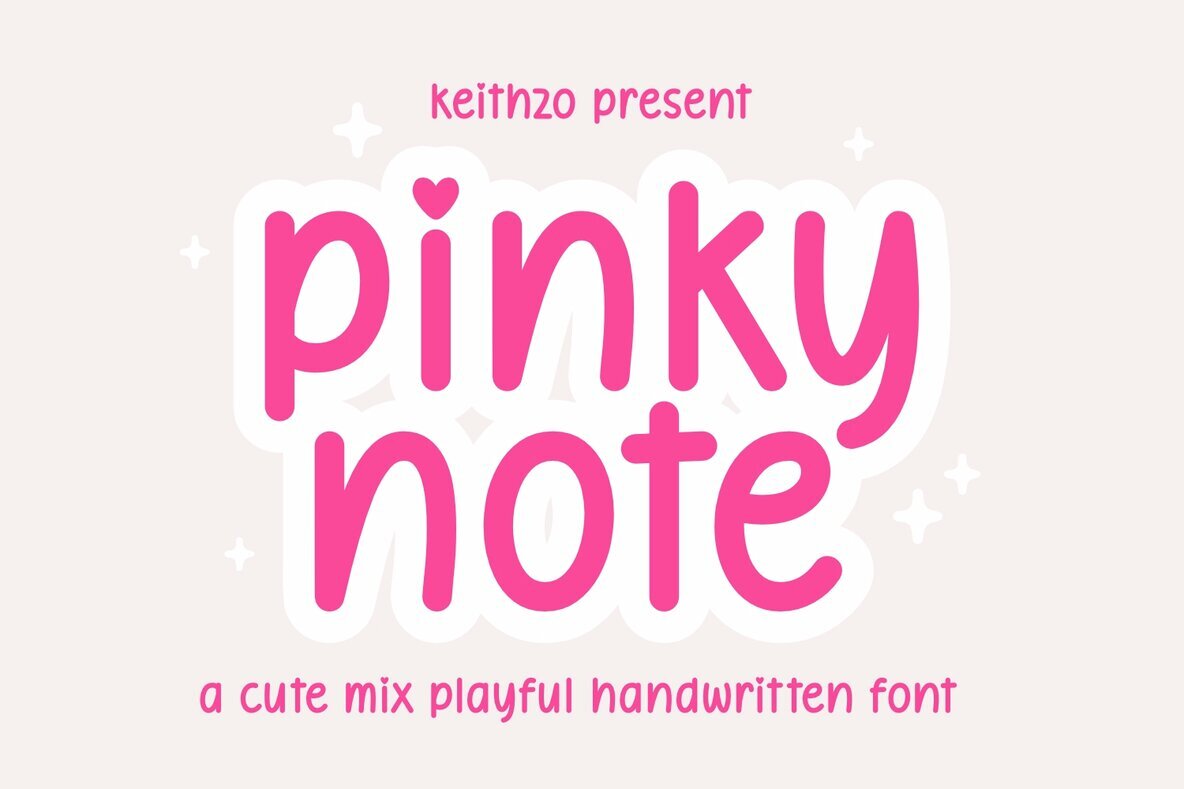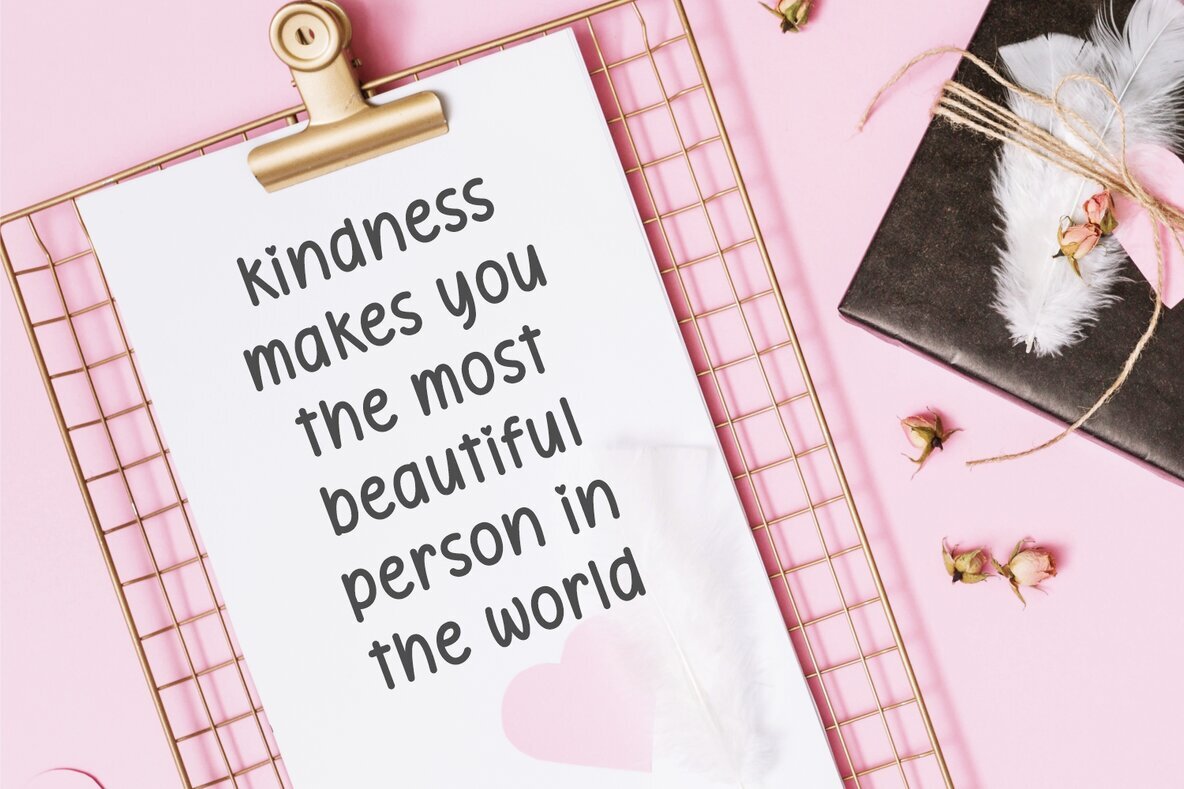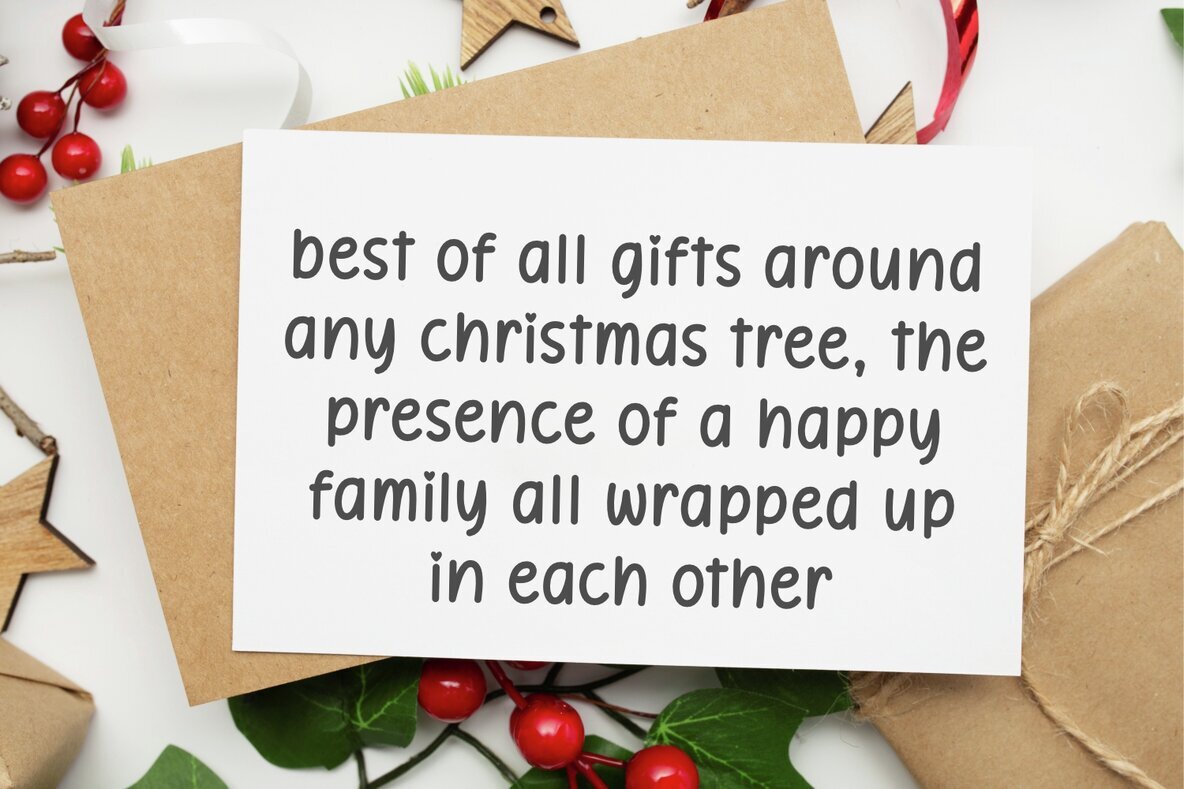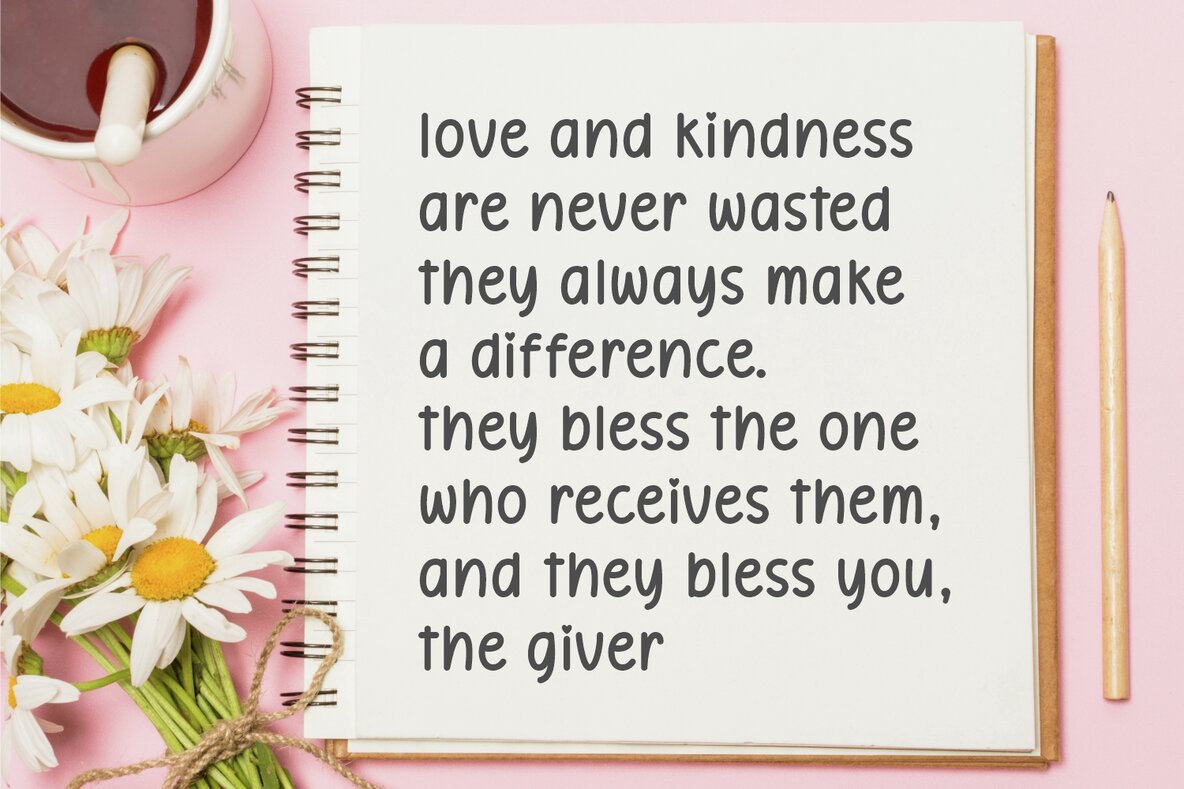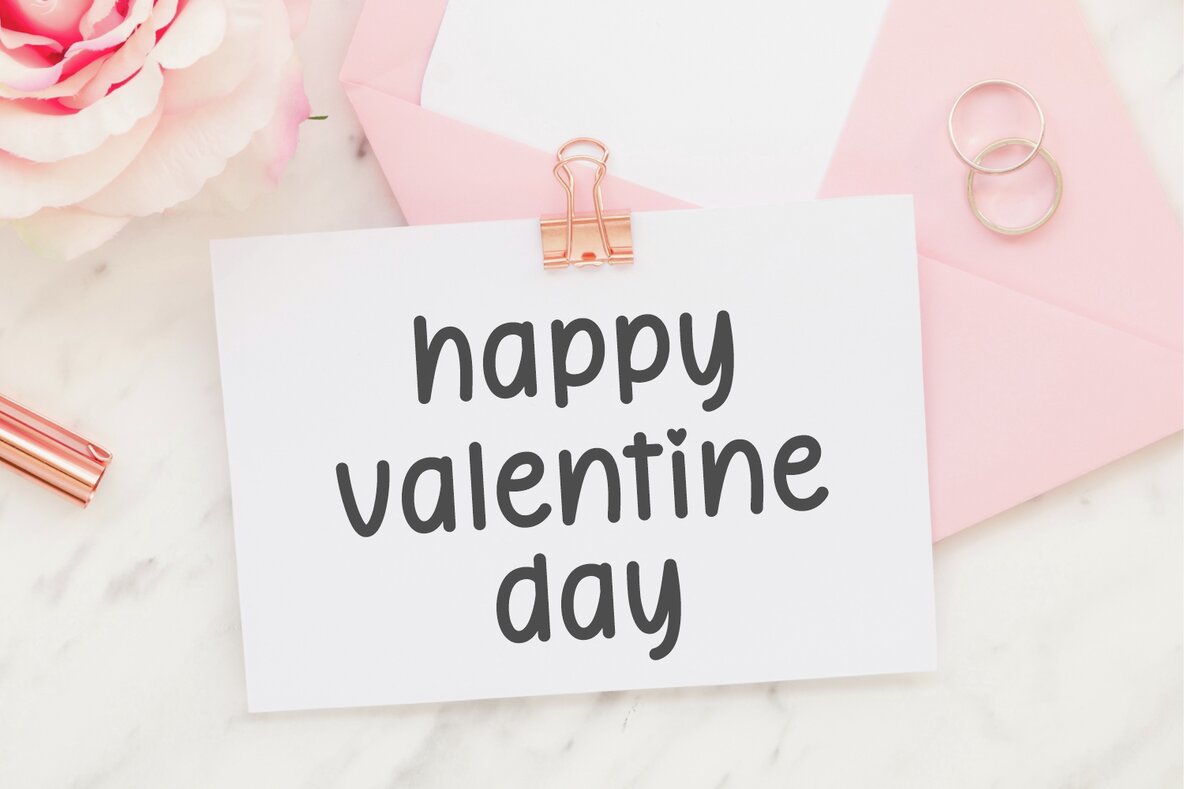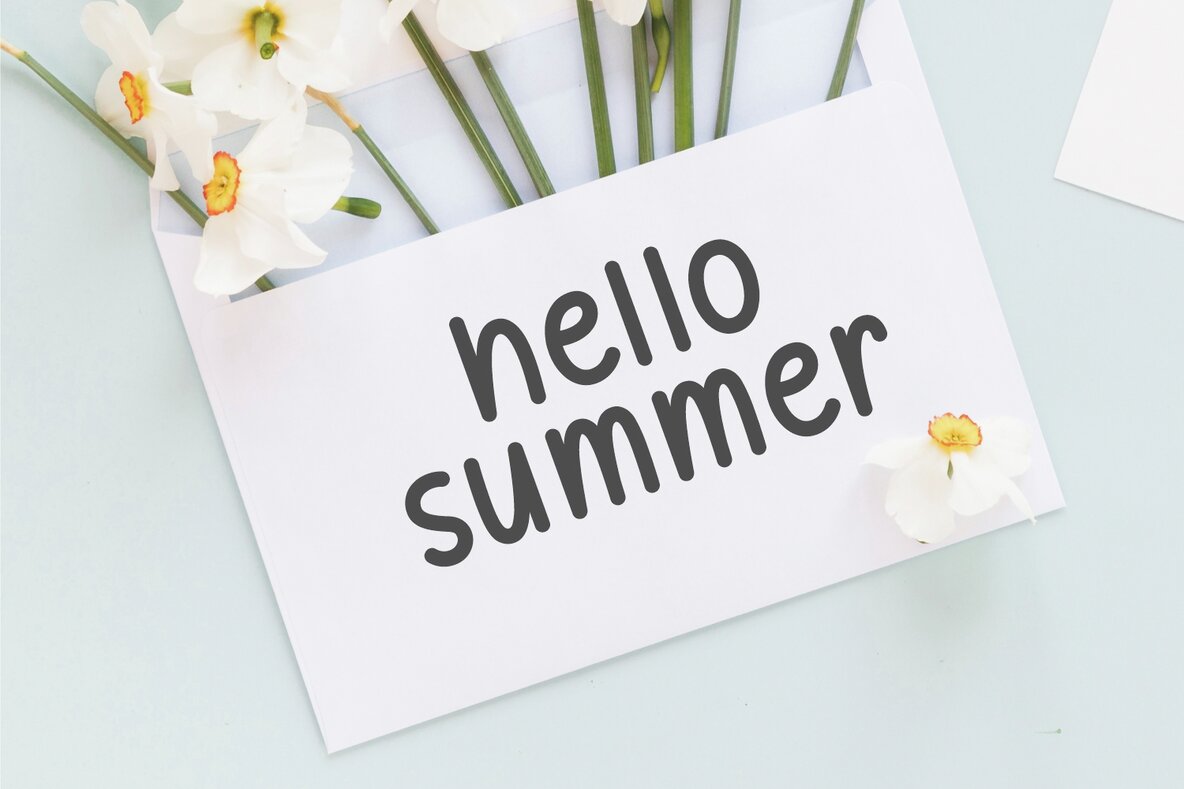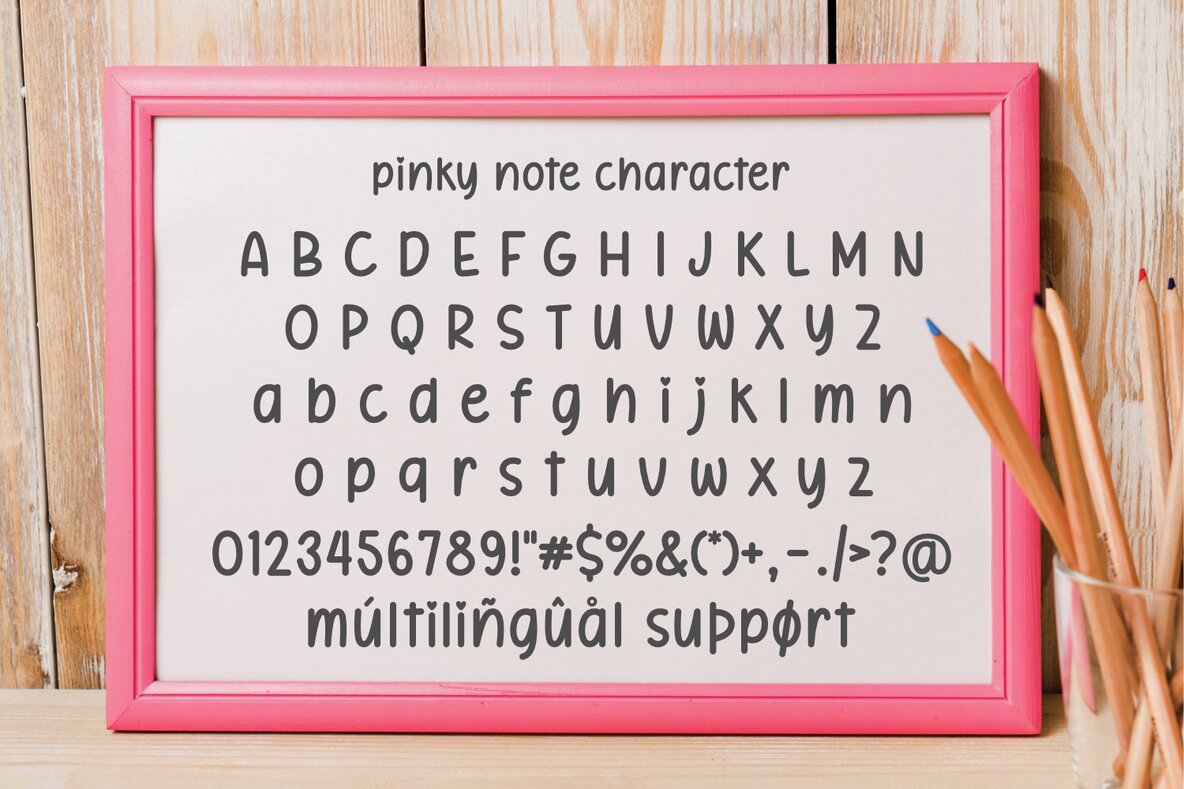
Pinky Note Font
Pinky Note
Pinky Note is a charming handwritten font with a whimsical appeal, perfect for infusing a touch of joy into any project. Its playful design brings enchantment to blog posts, birthday party invitations, and festive occasions like Christmas and Valentine’s Day. Pinky Note is versatile, adding a heartwarming energy to any celebration or creative endeavor.
Ideal for aesthetically pleasing note designs and school planners, Pinky Note offers a delightful option for countless creative applications. Whether for personal use or professional projects, this font exudes charm and vitality, making it an excellent choice for designers seeking to inject warmth and playfulness into their work.